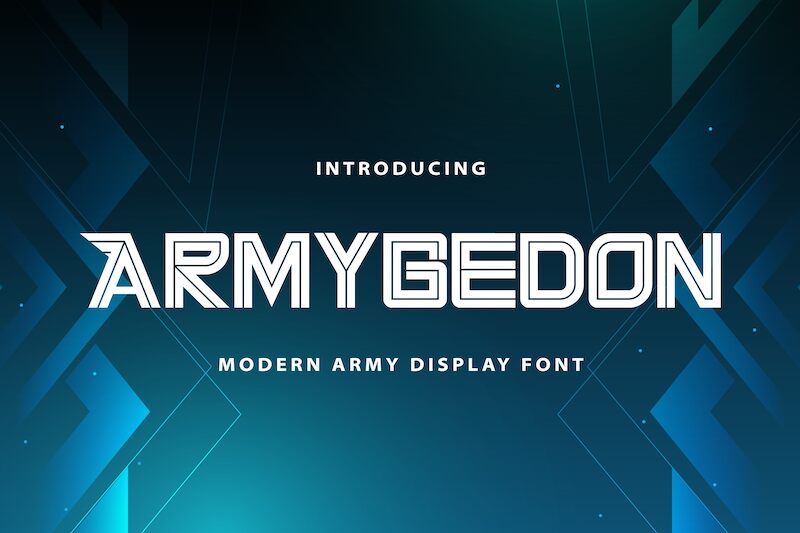
Armygedon
Armygedon font by StringLabs Creative Studio is a futuristic display typeface with bold geometric shapes, rounded and smooth curves, and great visual interest. Each letter is uniquely styled in an unusual way to make each word look unique and special. All these features combine to create a modern industrial font with a strong mechanical vibe.
The free techno display font suits texts on posters, album covers, book covers, video games (titles & interfaces), social media banners & ads design, animated movie subtitles and captions, websites (navigation bars or typical body text), editorial design for magazines or newspapers.